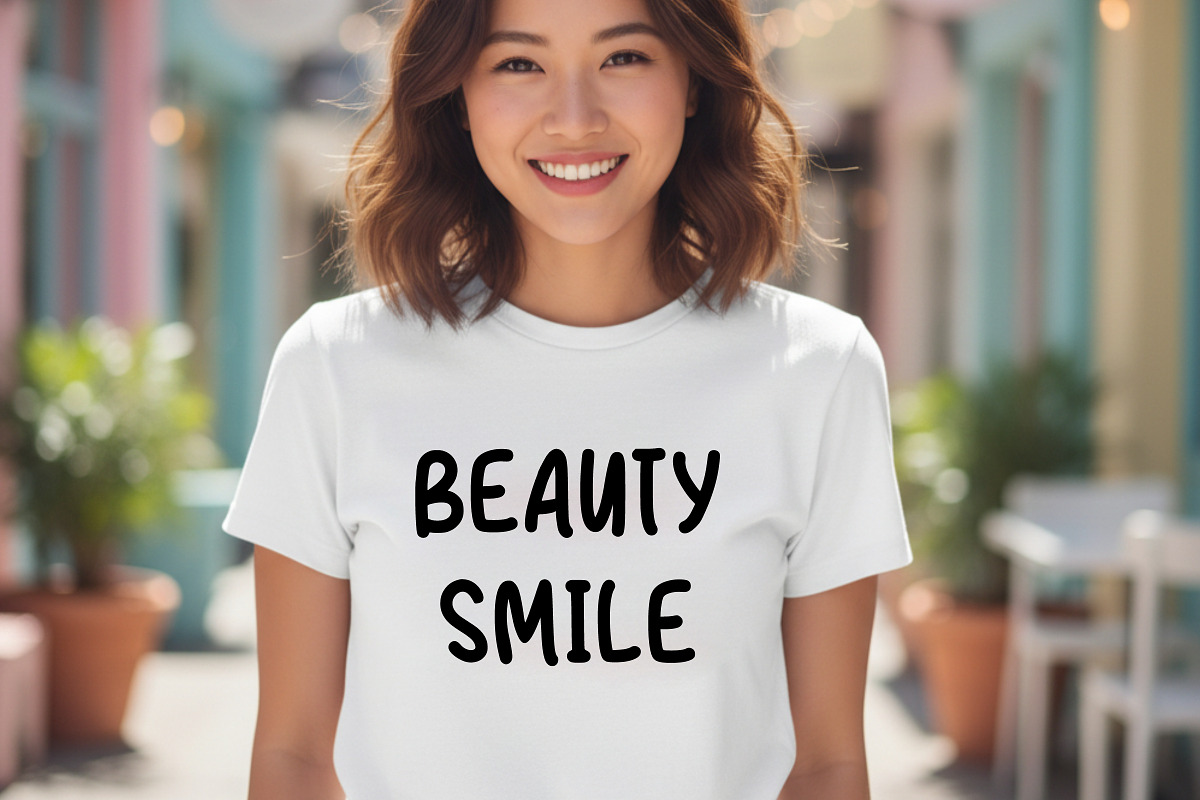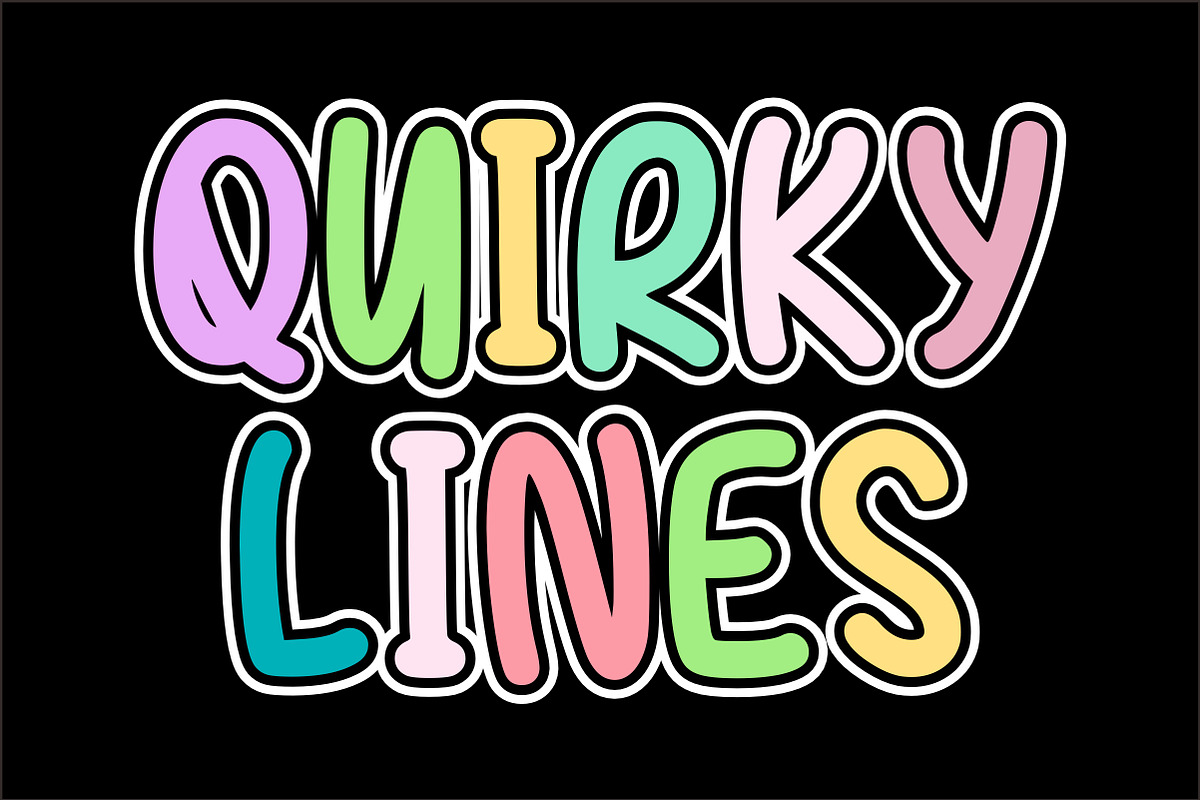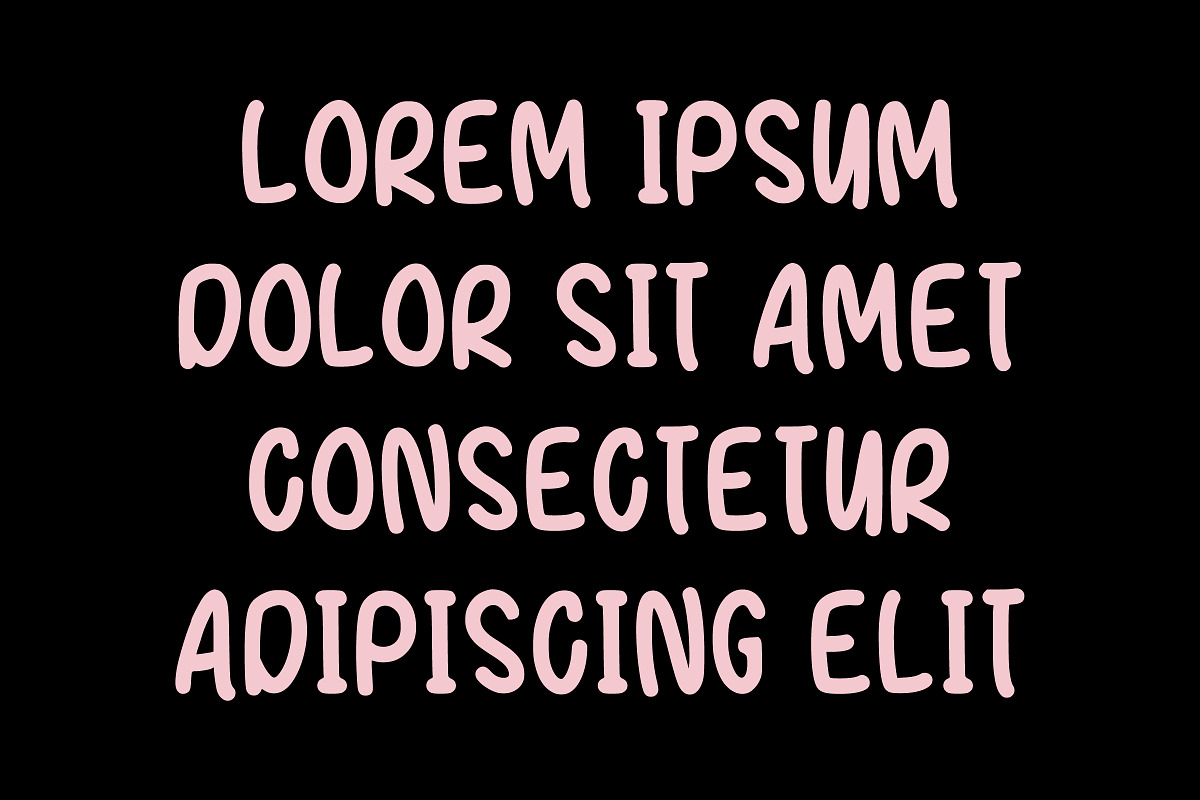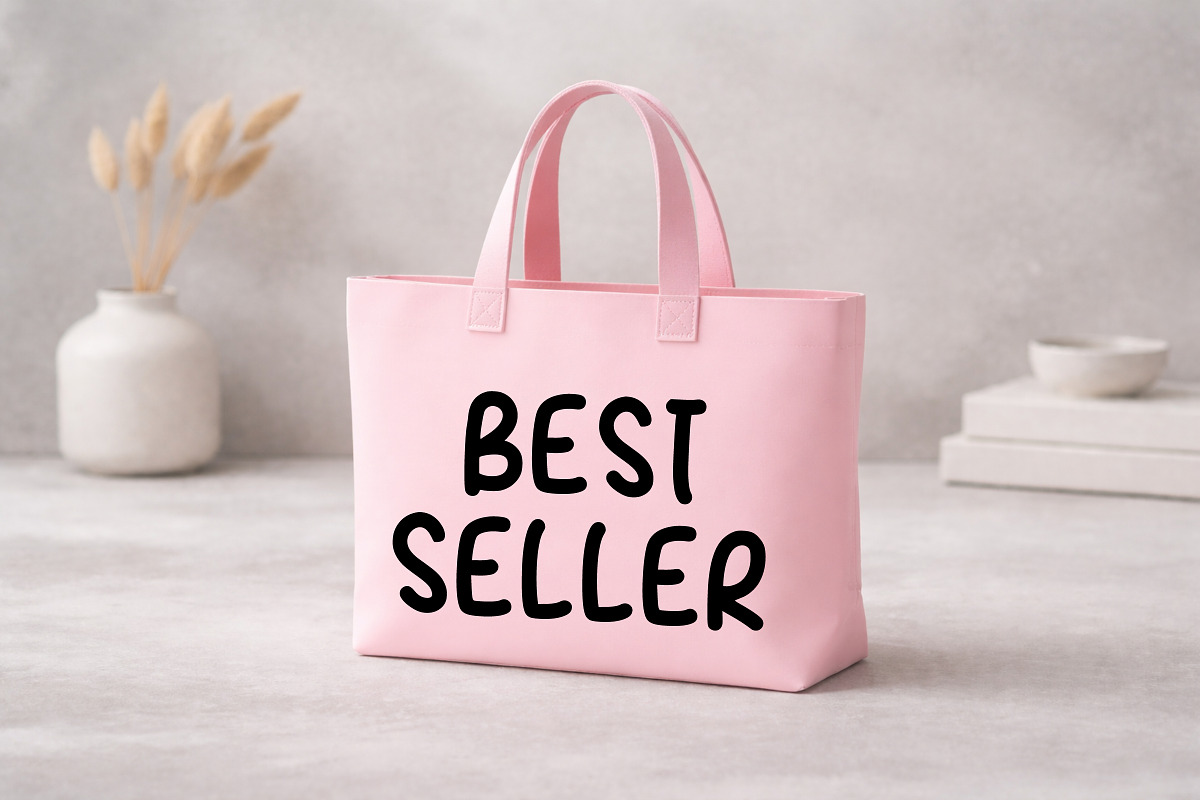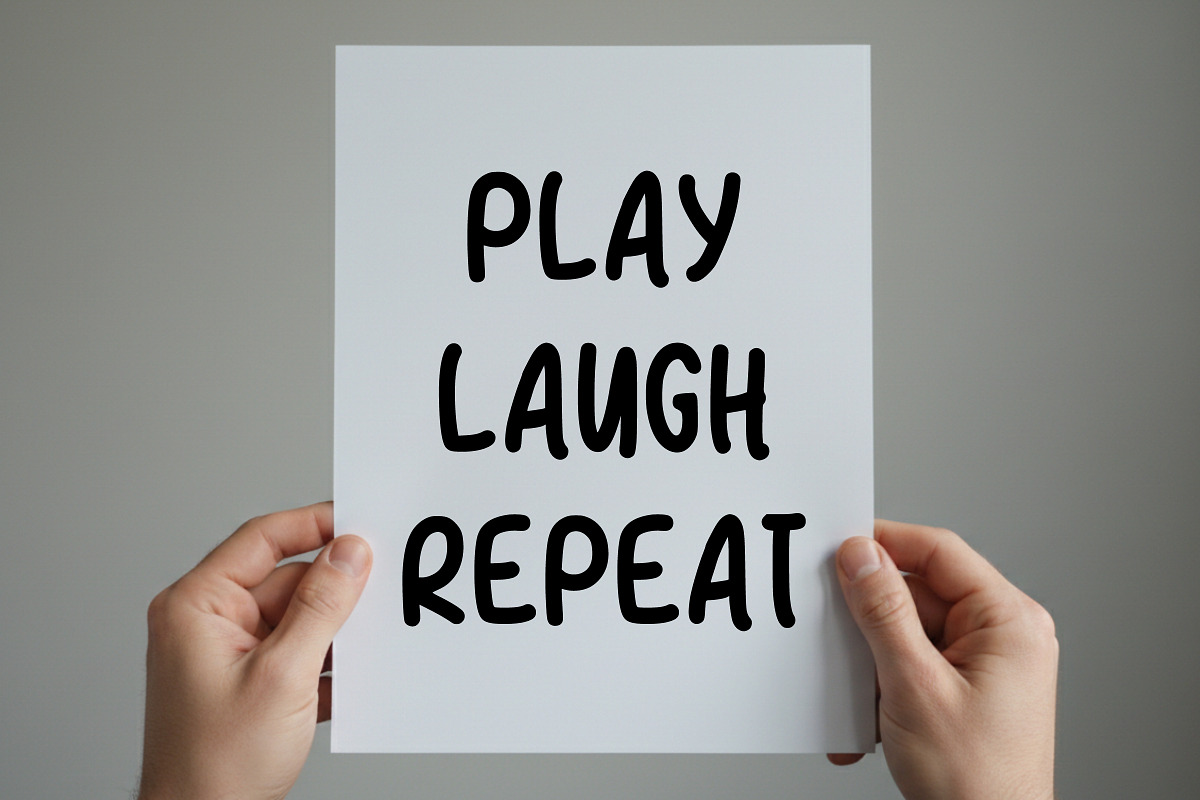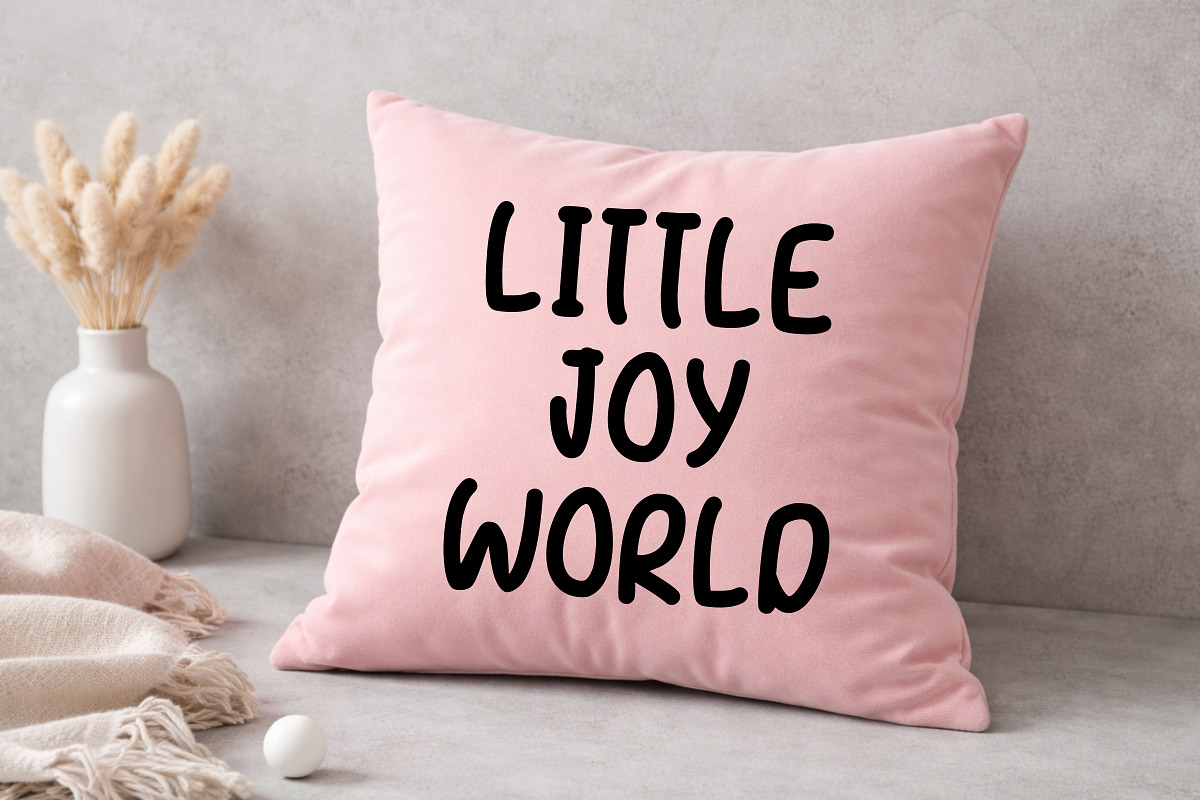
Quirky Lines
Quirky Lines is a cheerful and playful display font featuring rounded, bubbly letterforms with a hand-drawn feel. Each character is designed with soft curves and bold outlines, making it perfect for kids-themed projects, fun branding, and eye-catching designs. Its colorful and lively personality brings joy and creativity to any design.
Ideal for posters, packaging, t-shirts, children’s books, stickers, and social media graphics, Quirky Lines adds a whimsical and friendly touch wherever it’s used.